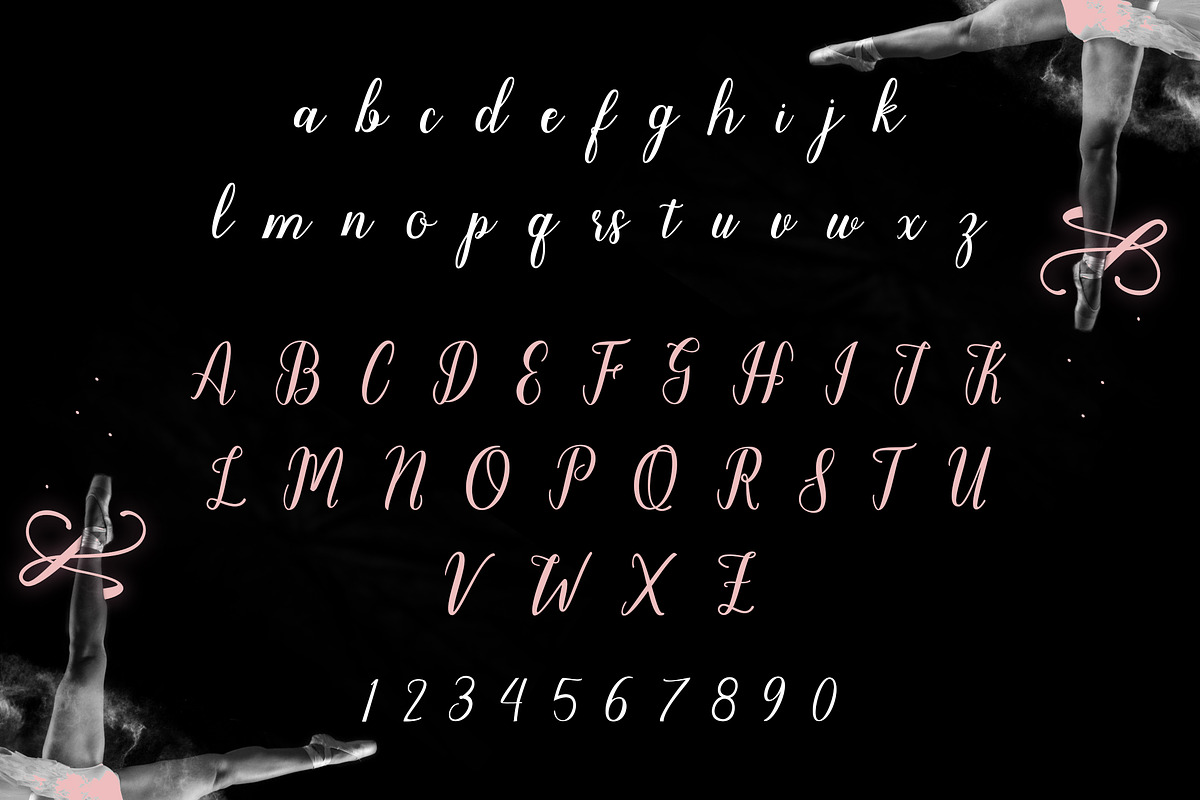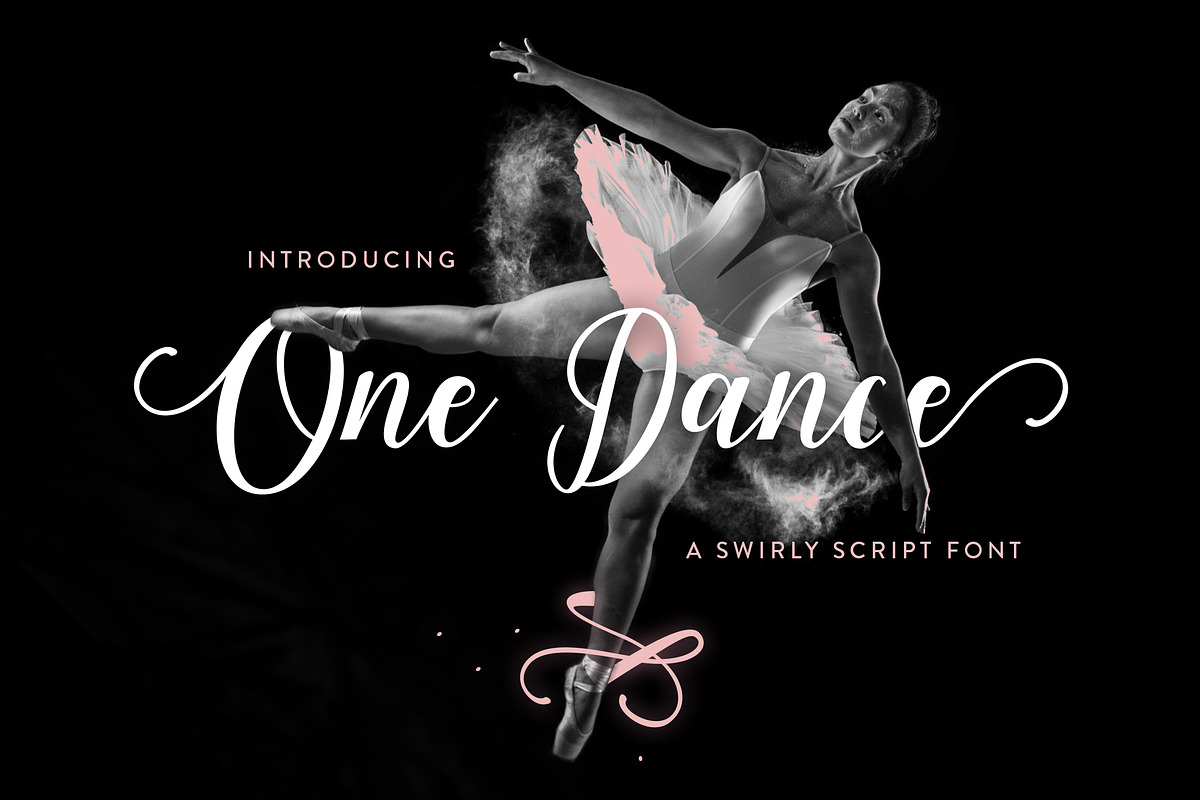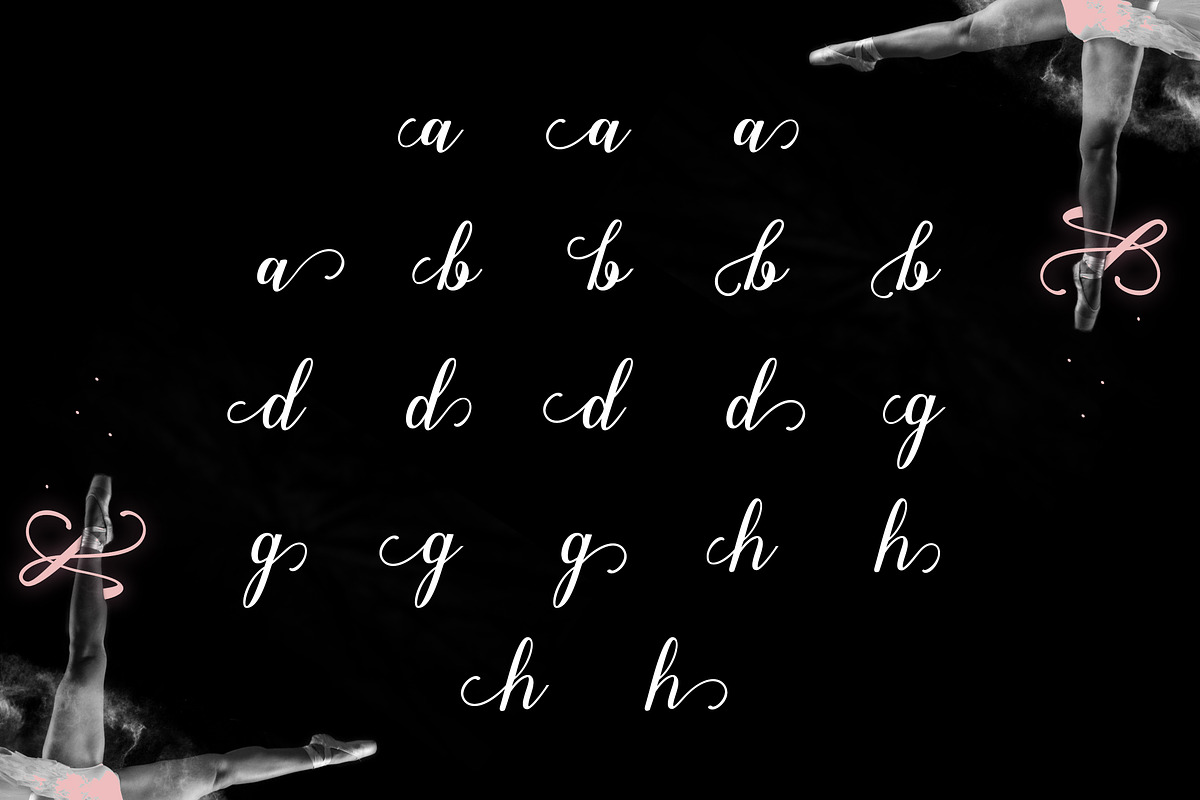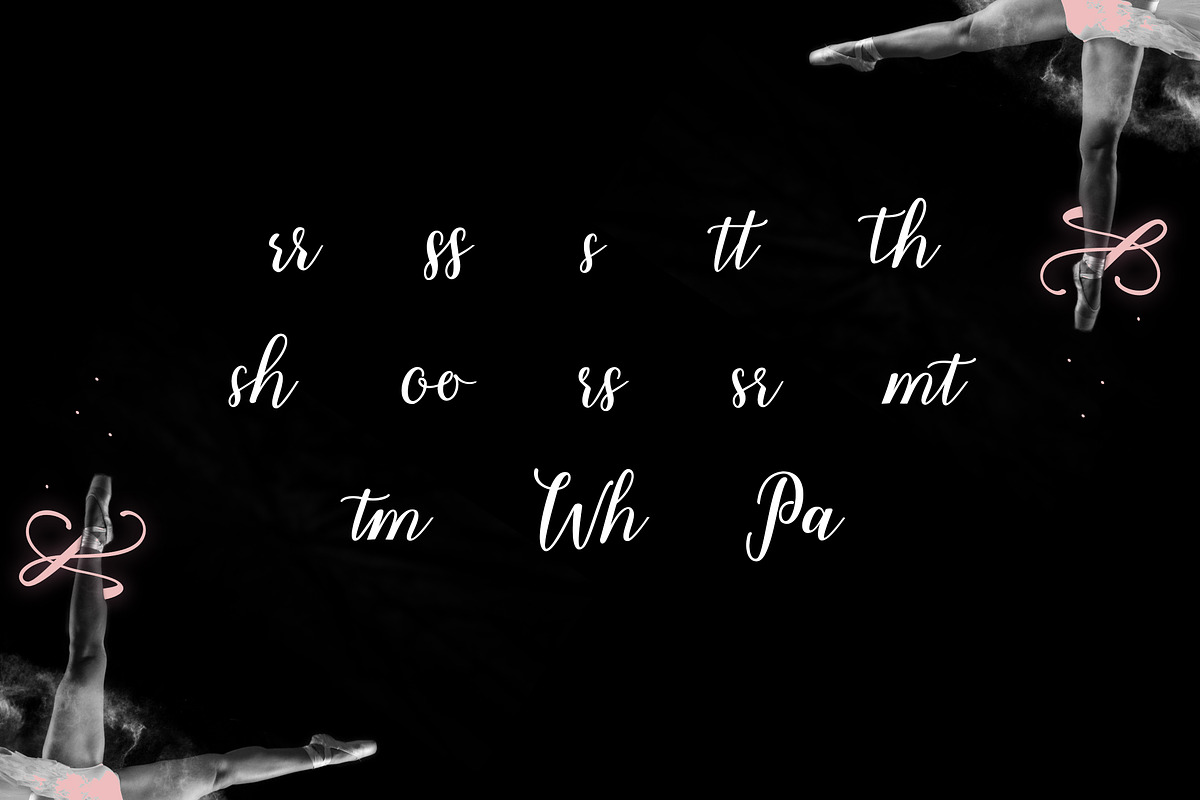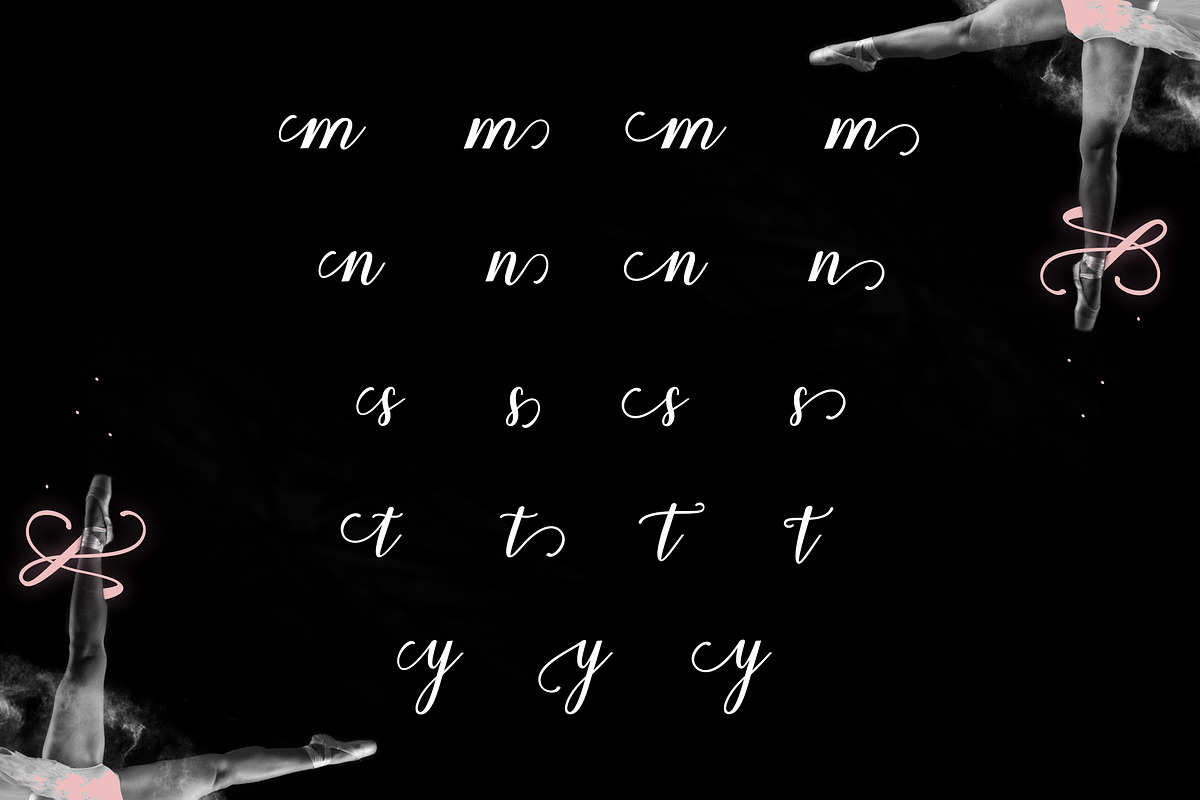
One Dance
One Dance by Font Bundles is a font selected for branding, posters, packaging, typography.
- This feminine font is smooth and characteristic in its nature, with its lowercase and uppercase forming a true companionship.
One Dance by Font Bundles fits naturally into Branding, posters, packaging, typography.